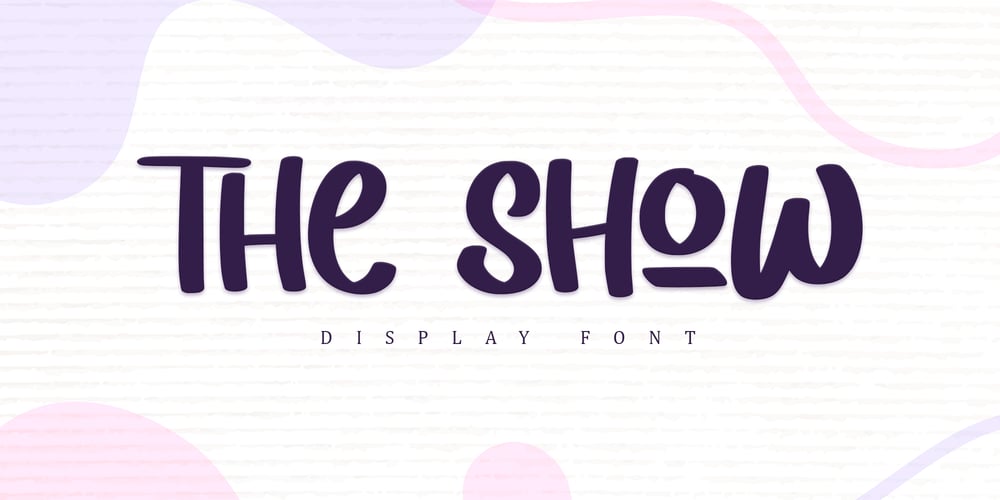
The Show Font Family was designed by Alif Ryan Zulfikar and published by Sakha Design. The Show contains 1 styles and family package options. The Show is a fun and friendly display font. Whimsical and a little bit quirky, this font will brighten up each of your designs!